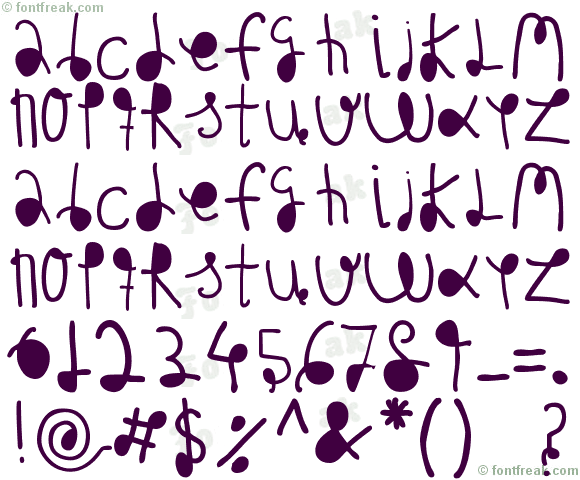
MANOLO
About MANOLO
Introducing the MANOLO font by woodcutter Manero, a remarkable typeface that exemplifies creativity and uniqueness. This decorative font is characterized by its playful and whimsical design, making it a standout choice for various creative projects. With its moderate stroke weight and striking contrast, MANOLO captures attention while maintaining readability. The spacing between letters is thoughtfully designed, allowing for a harmonious flow that enhances its visual appeal. The font features charming decorative elements that infuse a sense of personality and flair, making it ideal for projects that require a touch of elegance.
MANOLO is particularly well-suited for wedding invitations, where its artistic flair can set the tone for a joyous occasion. It is also perfect for movie posters, where its bold presence can effectively convey the film's theme. Additionally, this typeface works wonders for restaurant menus, adding an inviting and stylish touch that enhances the dining experience. Small business owners looking to create memorable branding will find MANOLO an excellent choice, as its distinctive design captures the essence of creativity and originality.
What sets the MANOLO font apart is its ability to blend artistic expression with practicality. Whether you're designing a playful poster or an elegant invitation, this font adds a unique touch that speaks to the heart of your message. Don’t miss out on the opportunity to elevate your designs with the MANOLO font free download, a true gem for any creative toolkit.